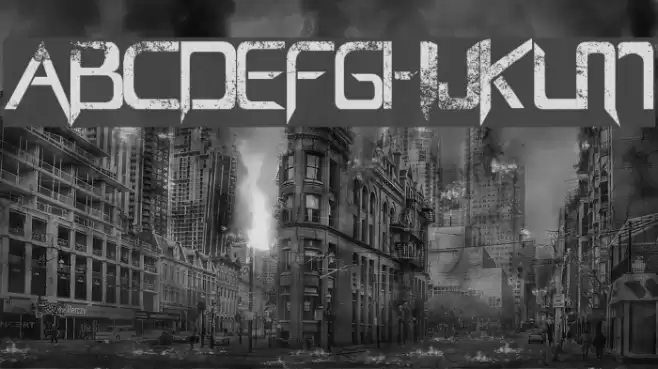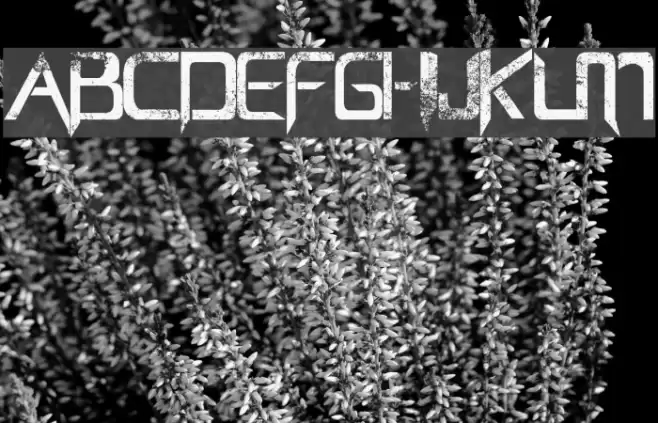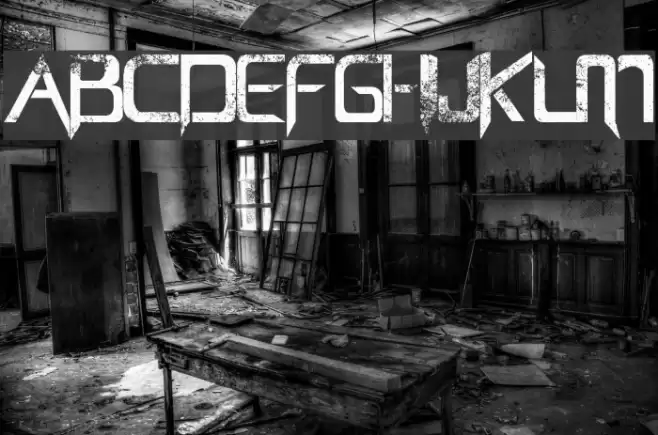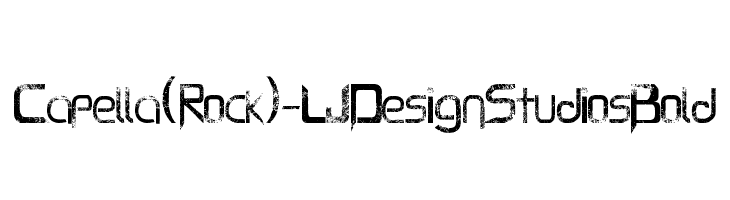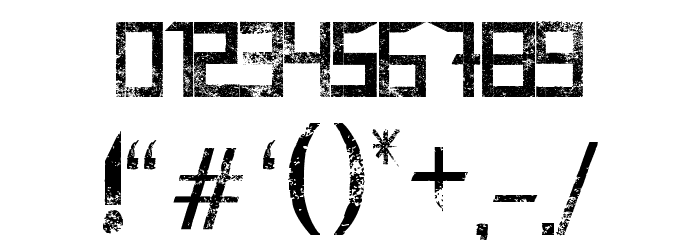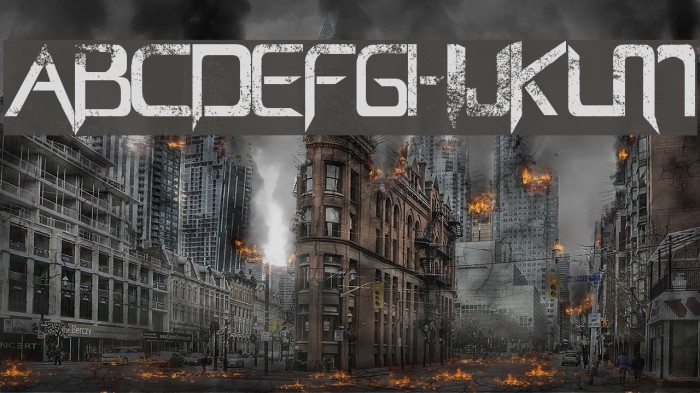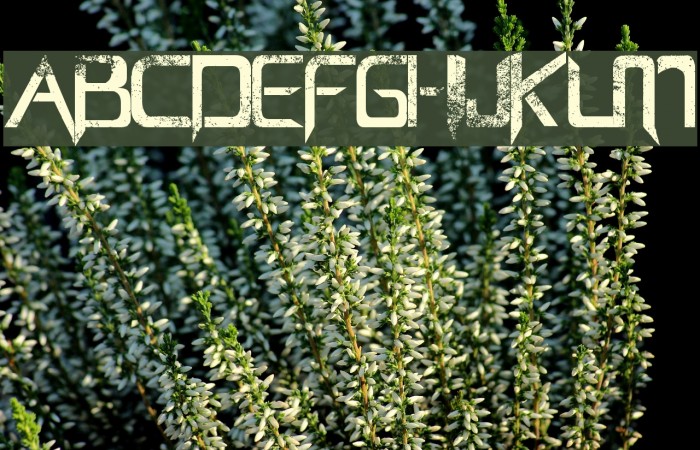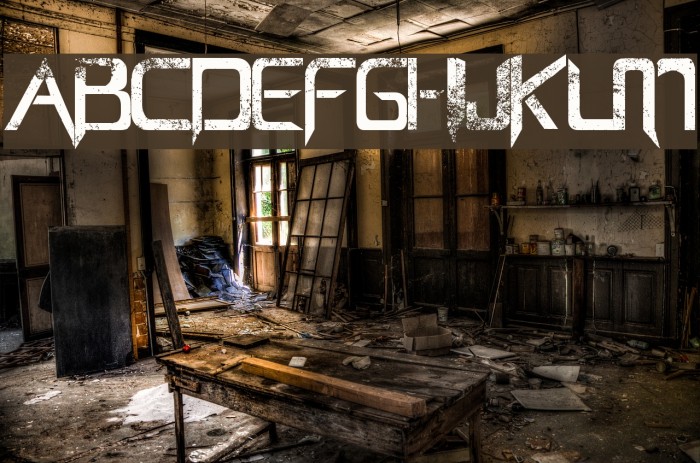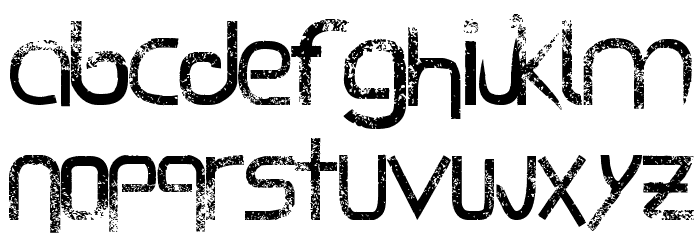
Capella (Rock) - LJ Design Studios Bold Font
Capella (Rock) - LJ Design Studios Bold Description
This font features a bold and distressed style, characterized by its sharp, angular edges and a rough, textured appearance. The uppercase letters are particularly striking, with a futuristic and edgy design that suggests movement and energy. The lowercase letters maintain a consistent style, offering a more rounded yet still angular form. Numbers and special characters follow the same design principles, ensuring a cohesive look across all elements. The distressed texture gives the font a grunge or rock-inspired aesthetic, making it ideal for projects that require a bold statement. Its unique style is both eye-catching and memorable, perfect for creating impactful designs.
- Proposed Projects: Ideal for music album covers, event posters, branding for edgy or alternative products, and any design needing a bold, impactful look.
- Overall Style: Modern, Grunge